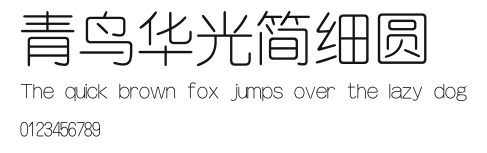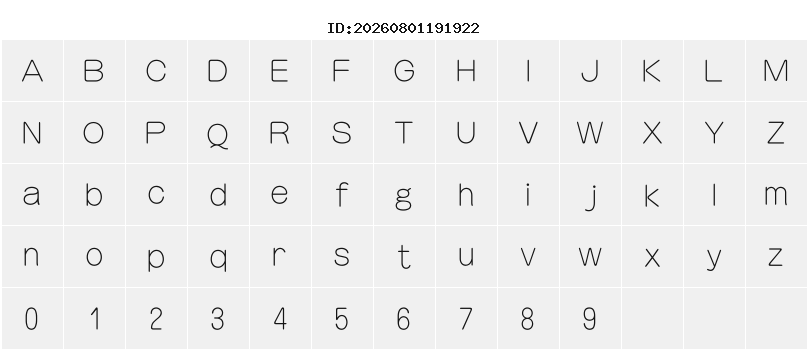
• Font Name: 青鸟华光简细圆
• Full Font Name: 青鸟华光简细圆
About 青鸟华光简细圆.TTF
青鸟华光简细圆.TTF is a modern, elegant sans-serif font designed for ultimate readability and visual harmony. Perfect for branding, headlines, web design, and print materials.